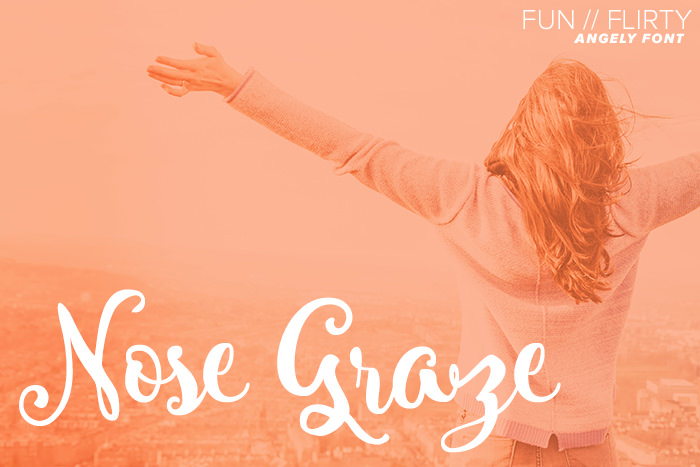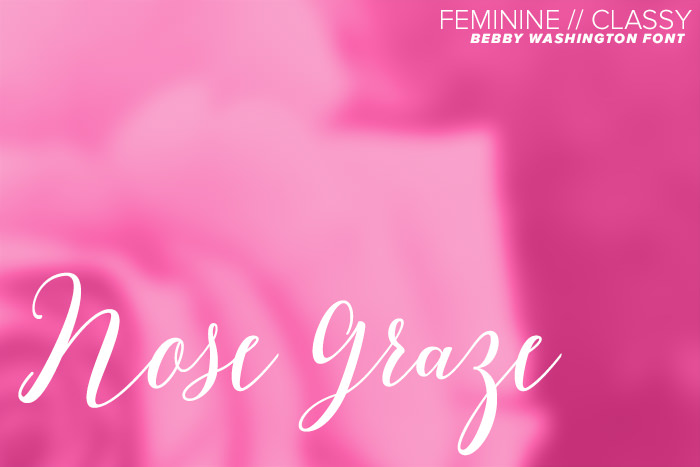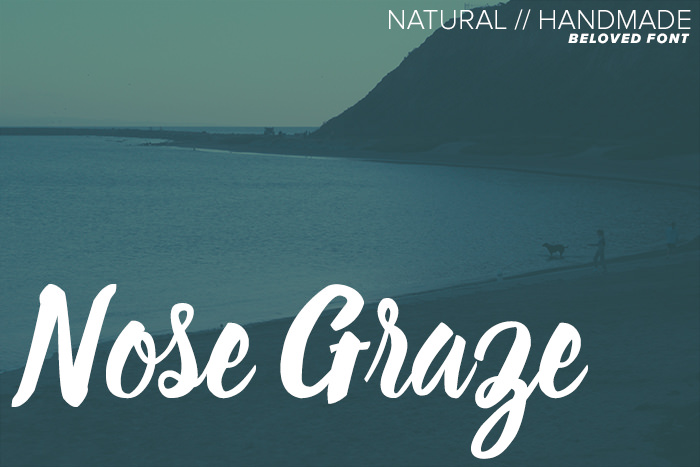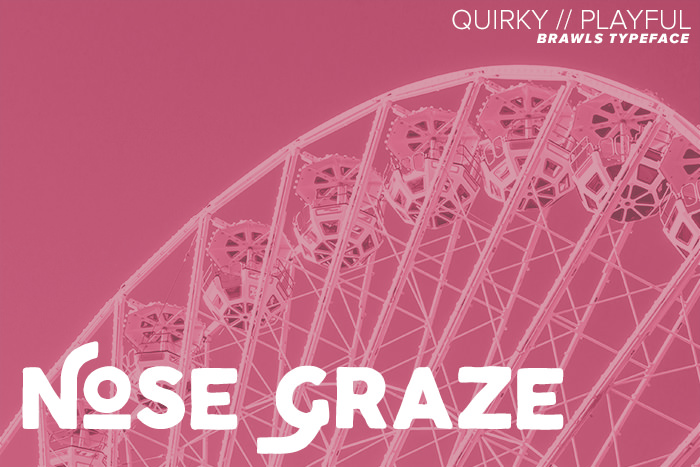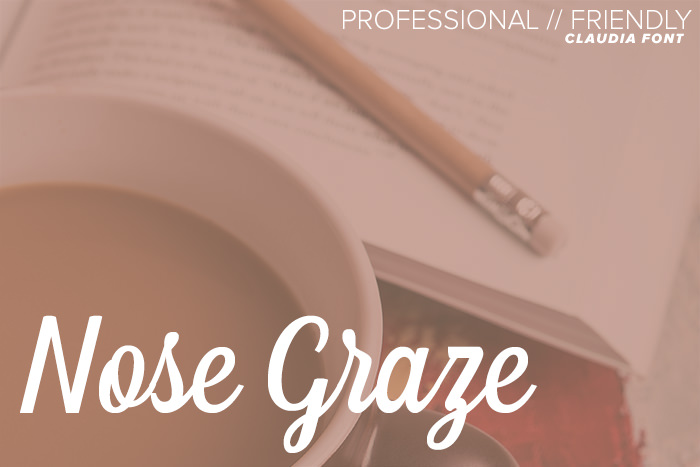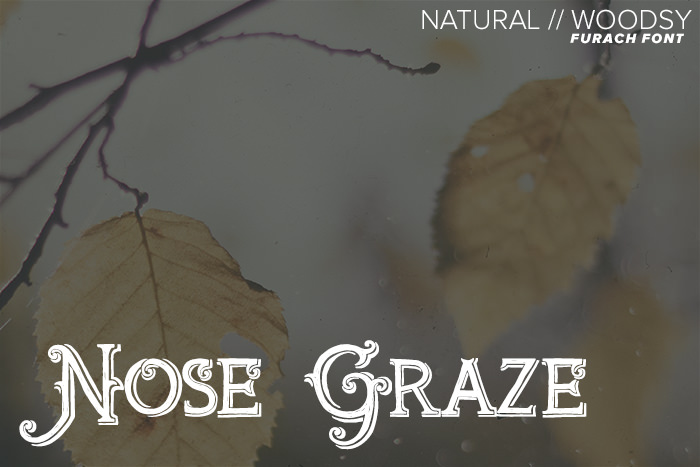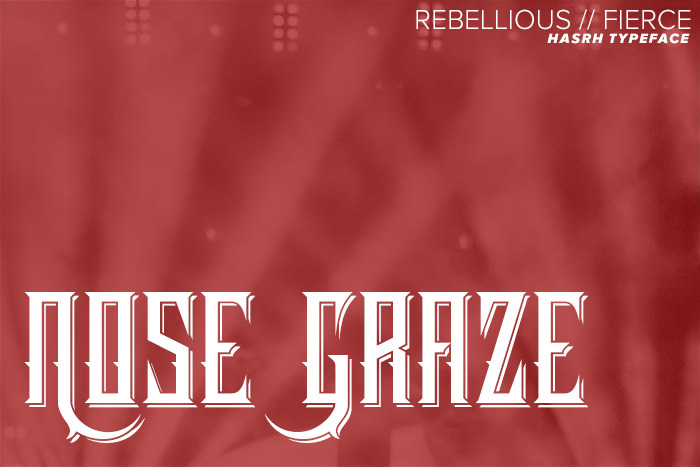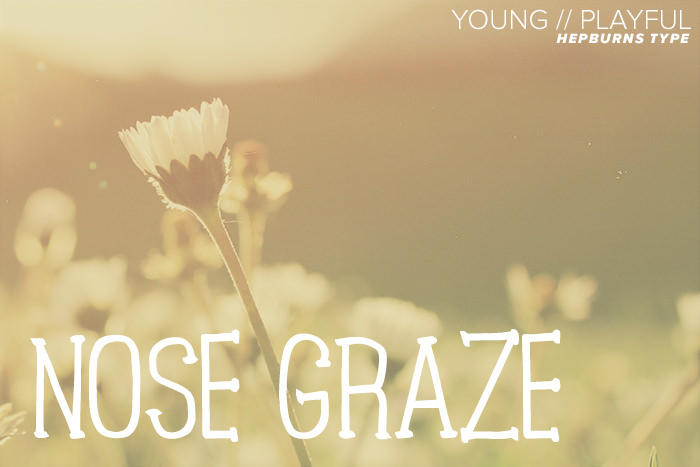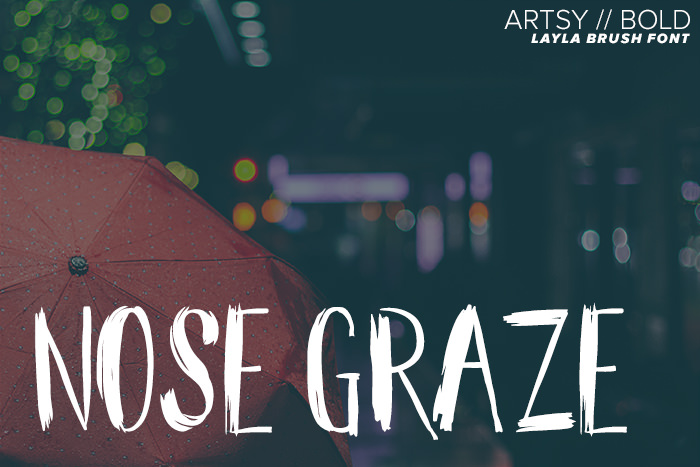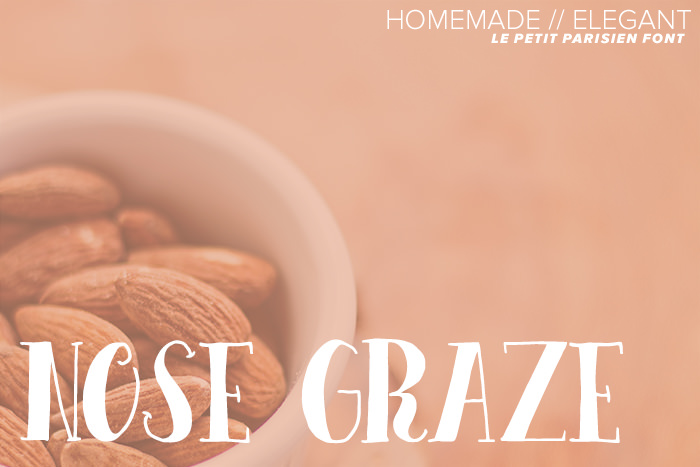
Font hunting is SO MUCH FUN.
As you may know from reading about my logo design process, I always start by choosing a font because it helps me build inspiration for the rest of my design.
But how do you know which font to choose?
You could just pick which ever one screams AMAAAAZING when you look at it, but you should also stop to think about what the font is saying. Fonts totally have personalities!
- Is it serious and sophisticated?
- Is it fun and relaxed?
- Is it young and quirky?
- Old and traditional?
- Classy and feminine?
Your font can help set the mood for the rest of your website.
Before choosing your font, ask yourself this: what impression do you want people to get of you and your website? When you look at a font, imagine the person who might have hand-written those letters. What kind of person are they?
Now with that in mind, let’s take a look at a few fonts I’ve put together and what messages I think they convey.
Angely
I look at Angely and I see fun, flirty and outgoing. This girl is fun, bubbly, BFF material. She’ll decorate your locker to surprise you on your first day of high school.
Bebby Washington
Bebby Washington is a little more refined. She’s feminine, classy, and not exactly “wild and crazy”. She’s quiet and put together.
Beloved
Beloved is all natural and handmade. I’m totally picturing a girl who started an organic food business and hand-writes all the food labels with a sharpie. I bet her hand hurts like a bitch.
Brawls Typeface
Brawls is a quirky fellow, aren’t you? I see Brawls as a company, rather than an individual, but the kind of company that aims to be super friendly and personal to all its customers/clients. I bet they give away funky stickers or quirky t-shirts for free that nobody would actually use, even if they are kind of cute. (A for effort, Brawls!)
Claudia
Claudia is clean, professional, and organized. She’s totally got her ducks in a row, if you know what I mean. She has a paper planner and HOT DAMN she is owning the shit out of it. Stuff is colour coded and days are all mapped out.
But don’t let her organized nature let you think she’s got a stick up her ass. She’s super sweet and friendly, and would love to chat with you about how she nailed her business workflow (and how you can too!).
Furach
Natural, woodsy, probably carved into a tree (with rough expertise). Furach actually makes me think of a Disney movie.
Harsh Typeface
Oh yeah, Harsh is totally harsh. Rebellious, fierce, maybe even goth. I bet you’ll find Harsh at a death metal concert.
Hepburns Type
Adoooorable! That’s what Hepburns is. Young, playful, totally naive, and probably a child.. the kind who likes to frolic through a meadow.
Layla Brush
Layla means business. Badass, bold, artsy business. She wields her brush like a fucking sword. If you’re in her way when inspiration strikes… may The Force be with you.
Le Petit Parisien
I see someone who’s elegant, but with a touch of homemade. She likes style, but likes to add a bit of flair.
Mia Bella
Mia Bella has overdosed on hearts. She’s girly, if the hearts weren’t indicator enough, but also very into the DIY scene. She’s the kind of girl who’s got a Filofax planner decked out TO THE MAX. Stickers, colourful paper, neon highlighters… she probably even sprayed some perfume in there. And she probably painted her own bedroom walls.
Moon Light
Here’s another fun and organized type. But a slightly different kind. I see organized with a flair of messy. You know, the kind that doesn’t necessarily look incredibly organized or scary-clean, but it’s organized TO HER. She knows where all her shit is and she knows how to rock it like a boss. Then she’ll take you out for drinks to celebrate.
Naive Fantasies
I wrote down “bold // dreamer”, and now as I’m going over this again, I finally put that next to “Naive Fantasies” and you know what that sounds like? A girl who has awesome, exciting dreams… that never actually happen. Now I’m all upset!
I like to think that our font’s dreams will come true.
Sobbers
Sobbers will take you out for one hell of a party and you’ll come back with matching tattoos.